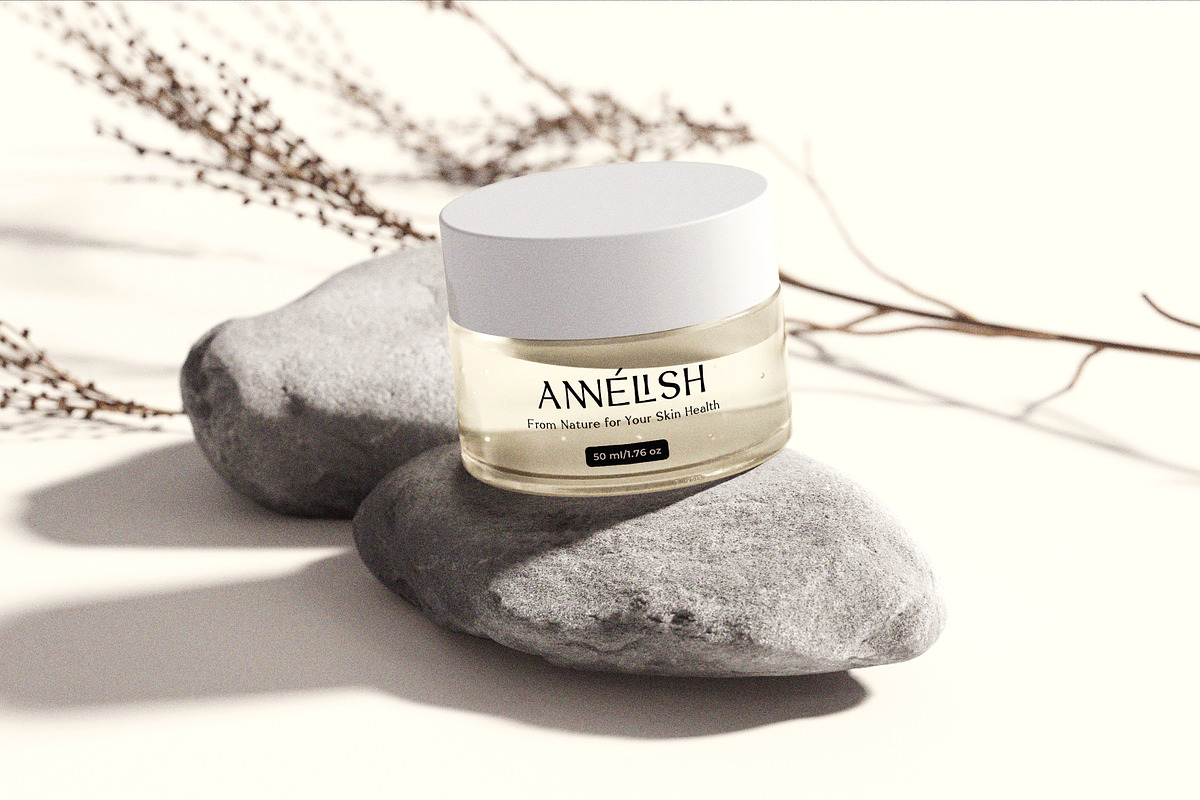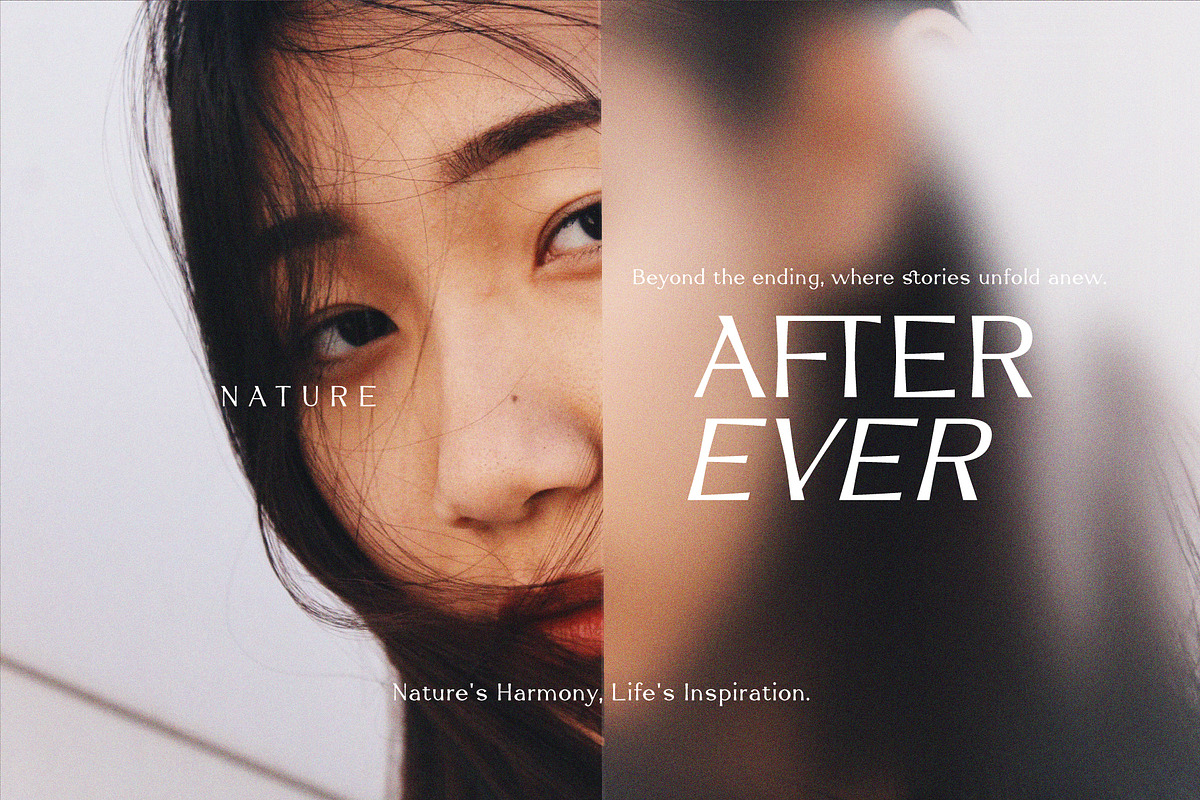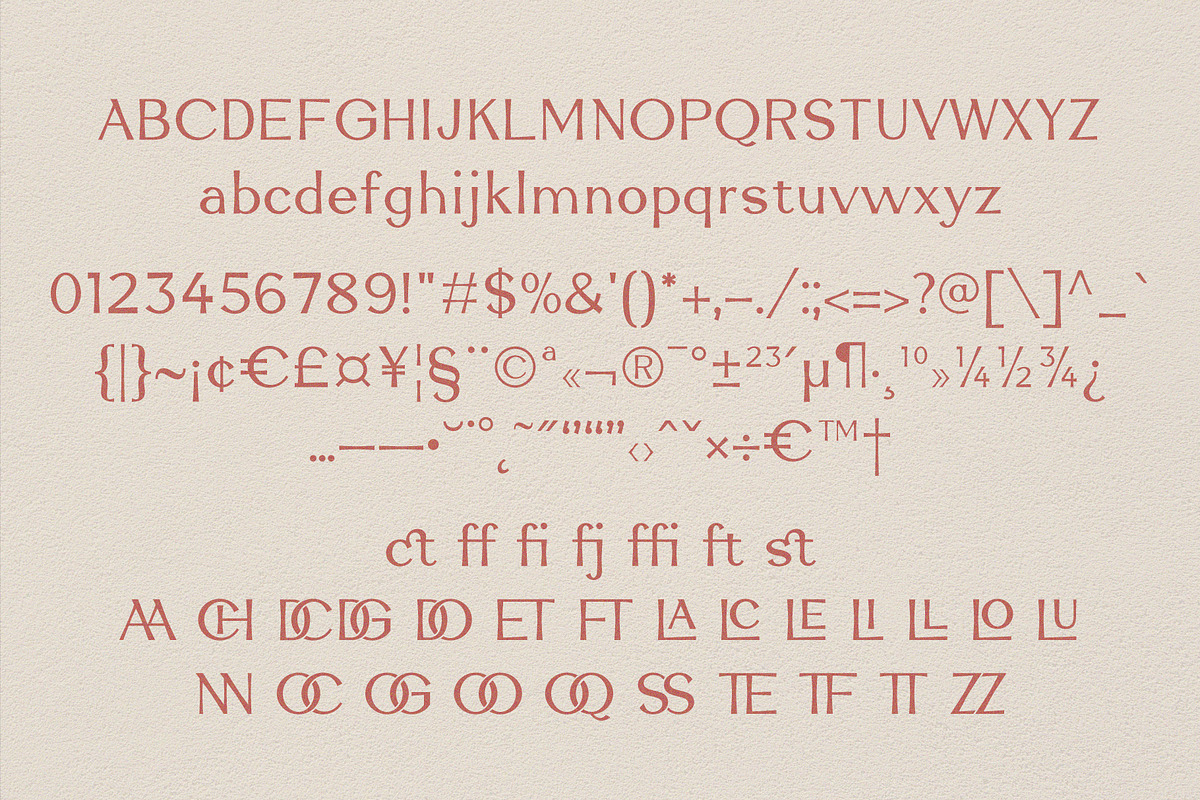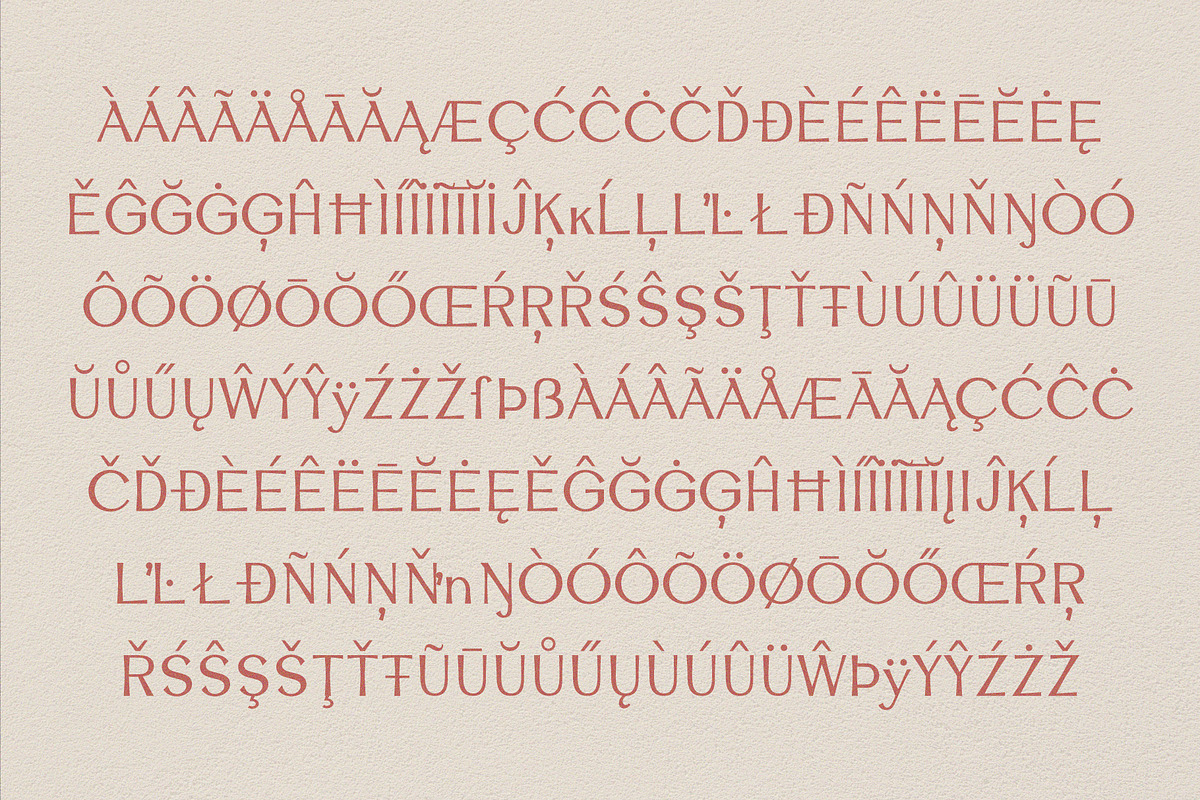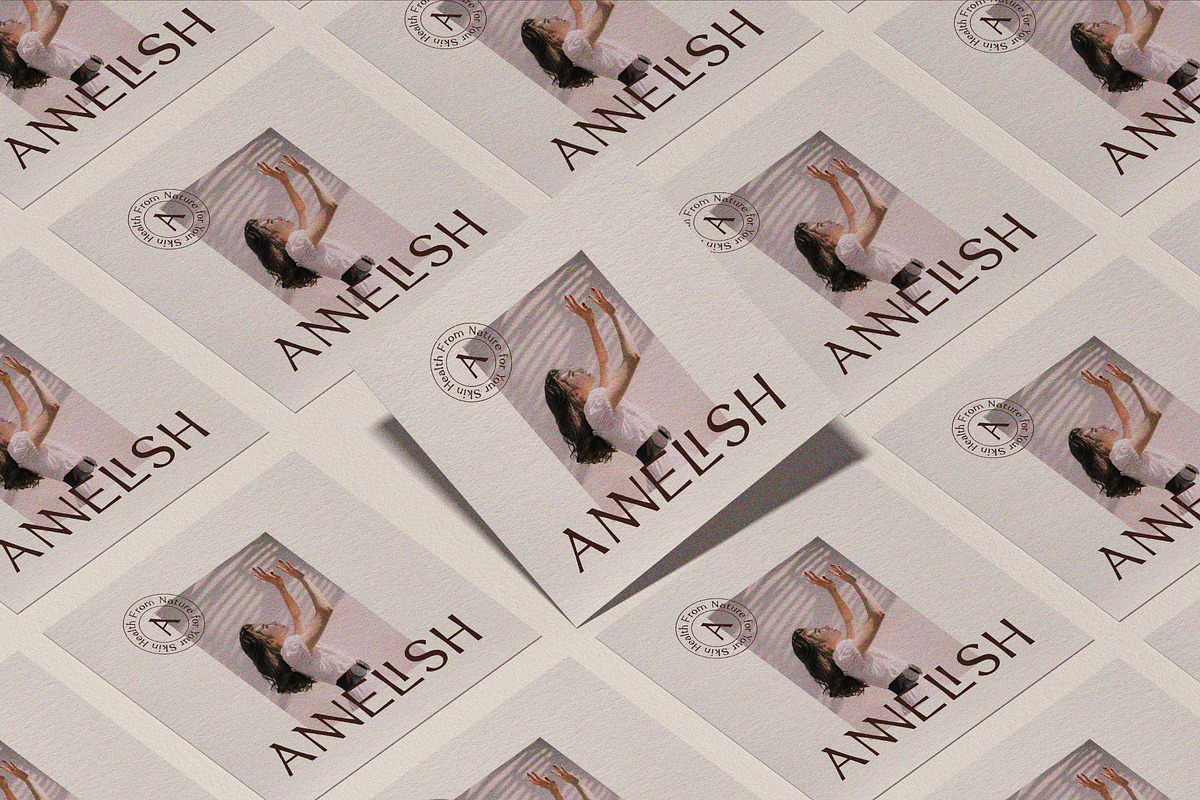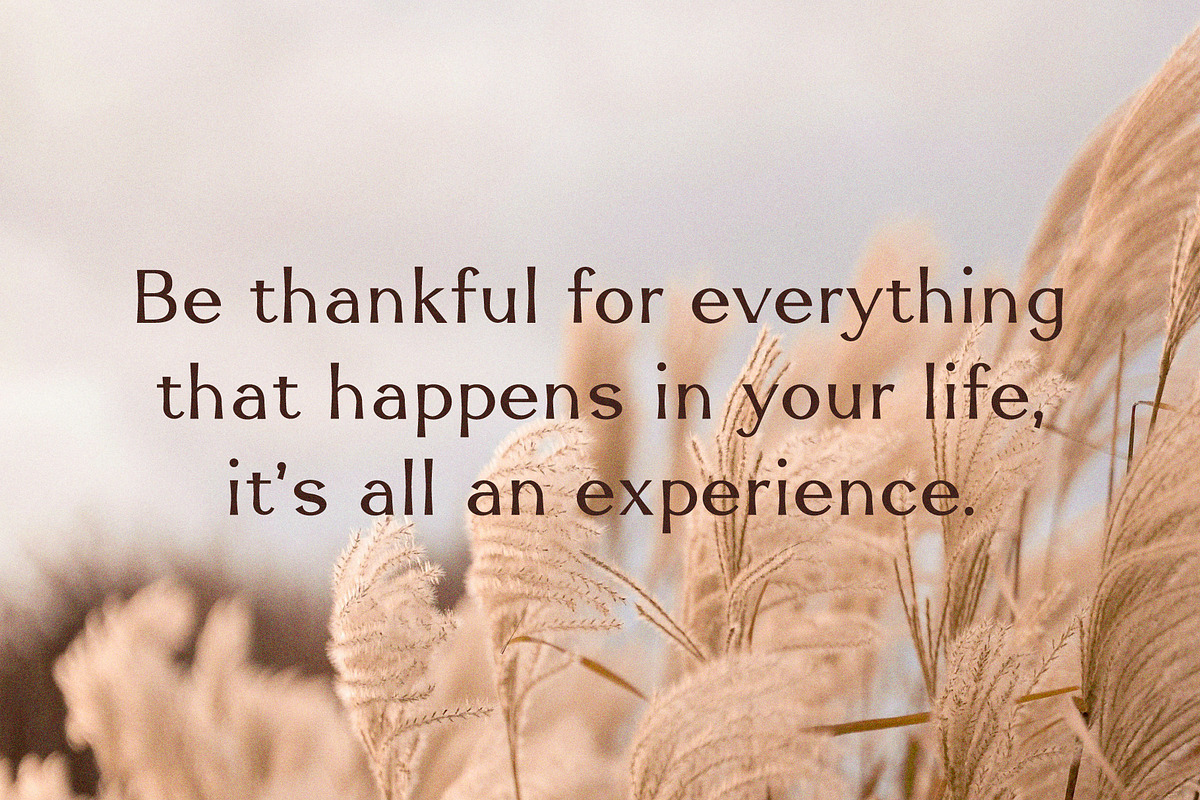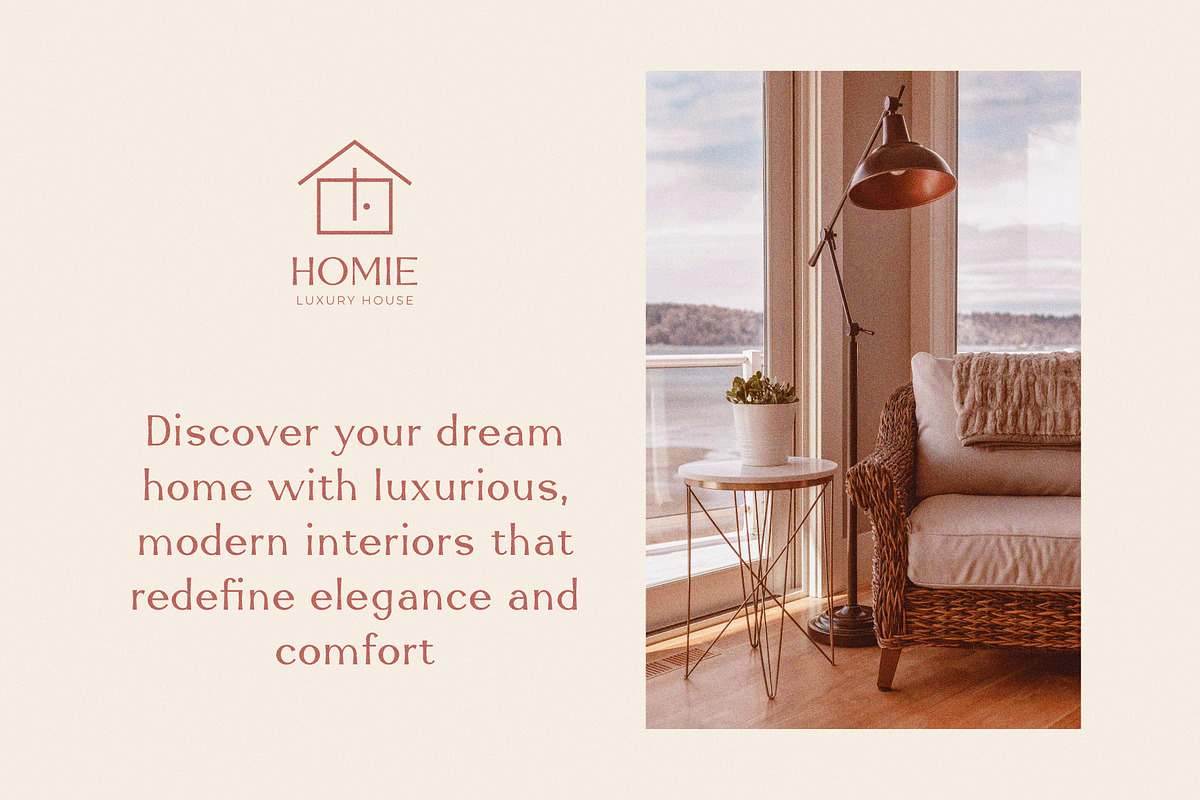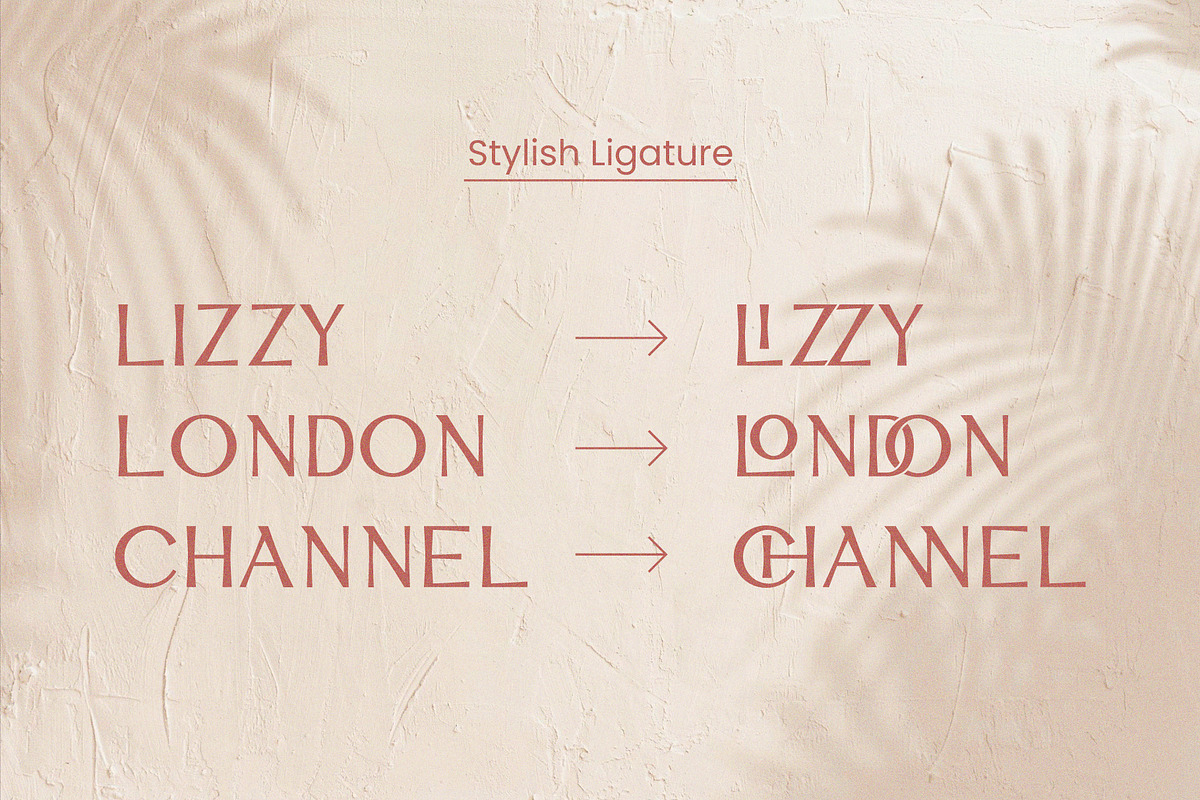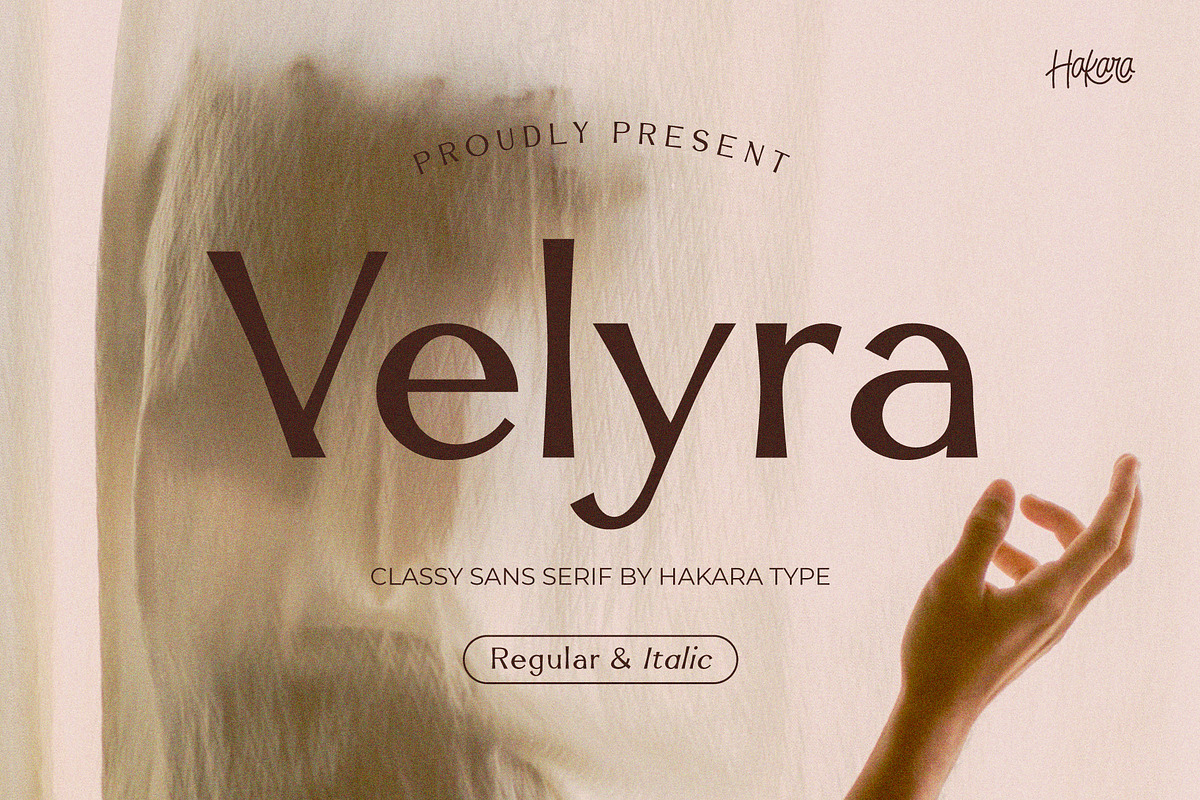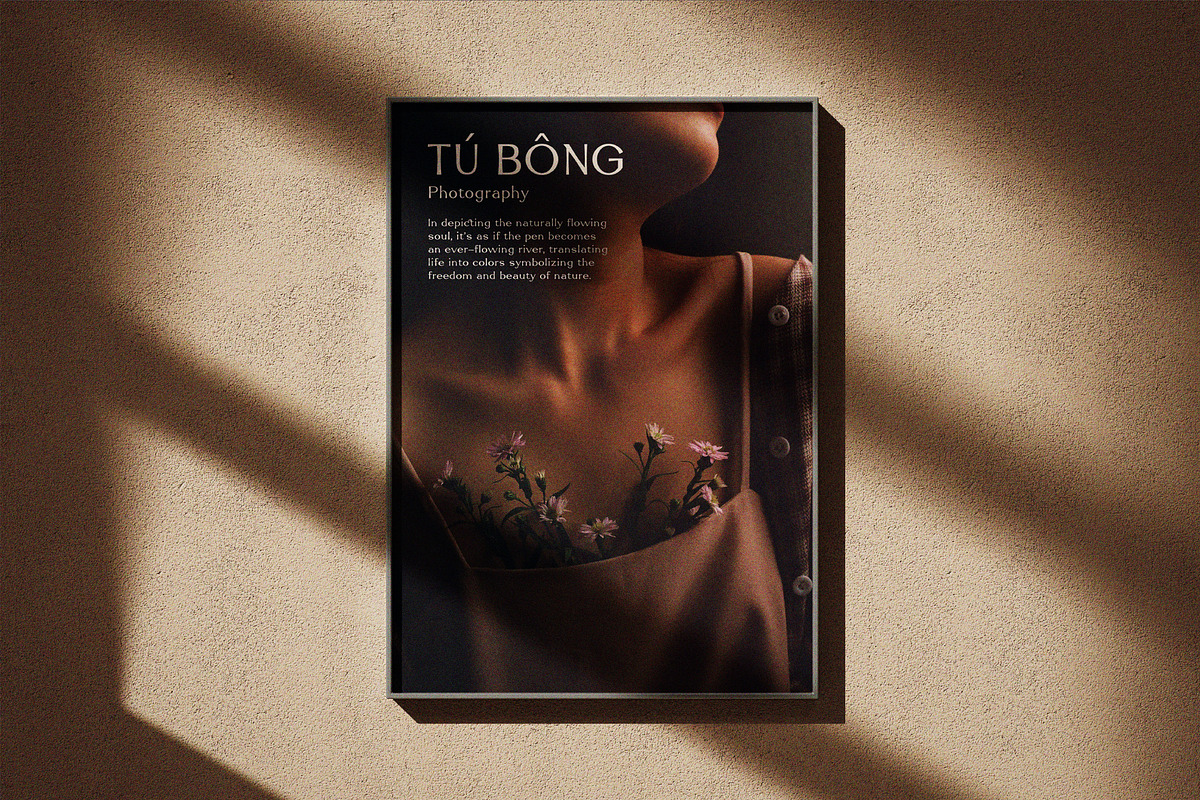
Velyra - Modern Sans Serif
Velyra font is a humanist sans serif display font with elegant shape, making it luxury and eye-catching. Velyra comes in regular and italic versions. Velyra comes with uppercase, lowercase, numbers, function, ligature, and included multilingual support.